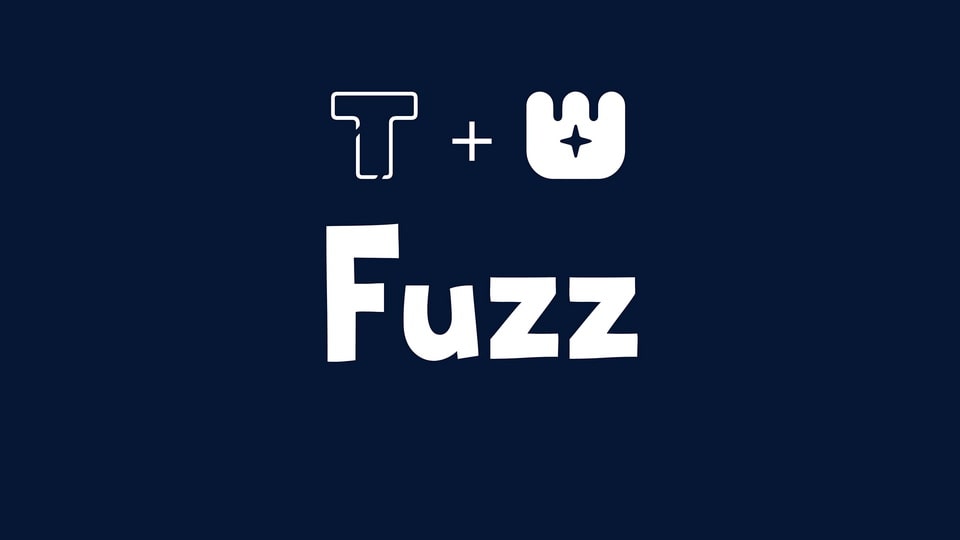
LT Fuzz Font › Fontesk – Download Grátis
Download LT Fuzz font, a furry-inspired typeface dedicated to anthros, furries and other enthusiasts of that kind. With the stylistic alternates being the pawprints as the holes on each letter, this typeface gives a paw-sitive impression.
Designer: LyonsType